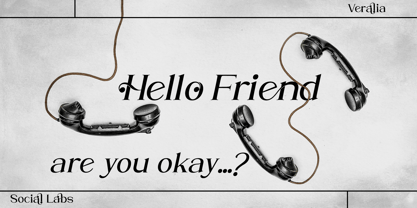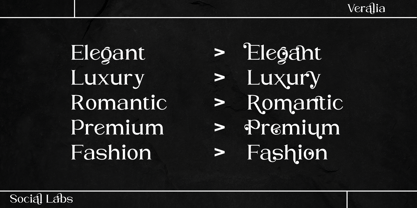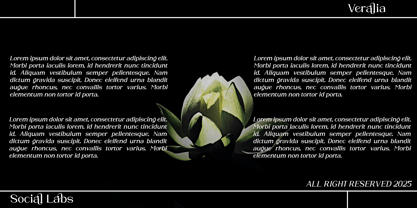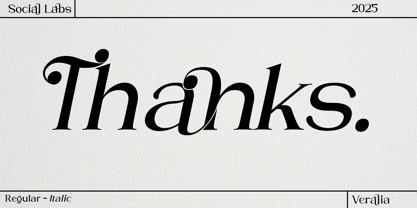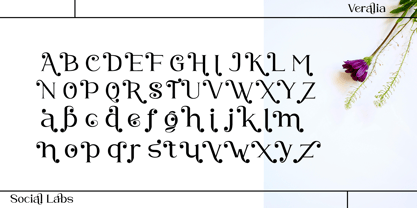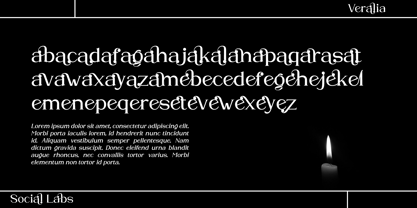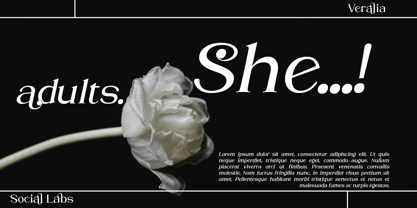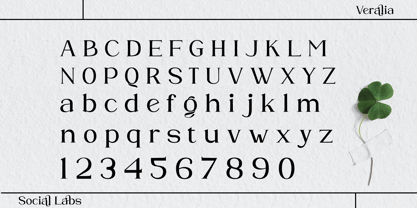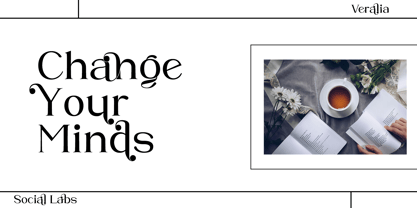
Veralia
by Social Labs
The Veralia Font Family was designed by Muhammad Naufal and published by Social Labs. Veralia contains 2 styles and family package options. More about this family
Veralia is an ornamental typeface born from a fusion of modern calligraphy and classical elegance, featuring soft, flowing curves like a dance in the wind and decorative details that radiate true beauty. The name Veralia itself comes from the word vera, meaning ‘true’ or ‘pure’, combined with the feminine nuance of the suffix -lia, reflecting the philosophy that every stroke of this typography is a manifestation of authentic elegance. With its beautiful swash characters, Veralia not only writes words, but also weaves emotional visual stories, making every logo design, wedding invitation, cosmetic packaging, or other creative work more than just an appearance, but an emotional experience. This is the font created for those who want to highlight an identity full of beauty, express luxury in softness, and leave a lasting impression that is not easily forgotten.